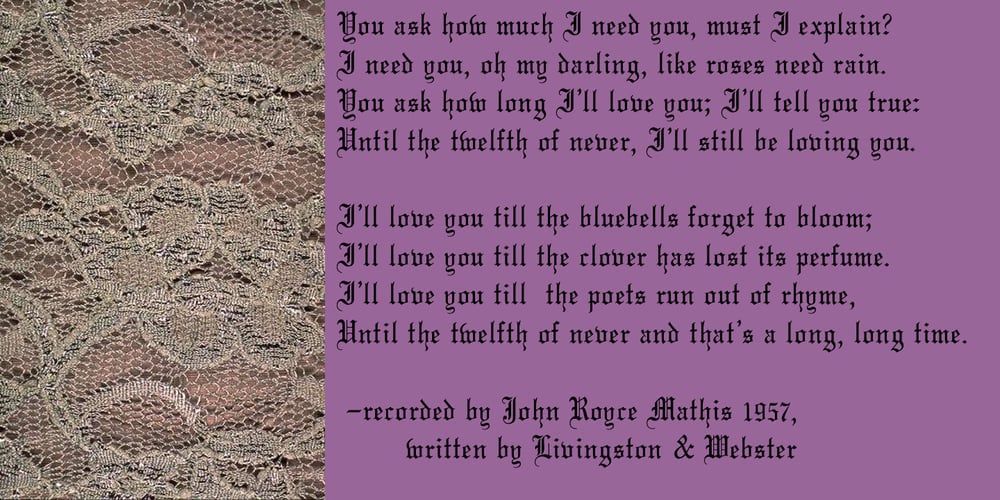
Wedding Font Family was designed by Morris Fuller Benton and published by HiH. Wedding contains 2 styles and family package options. Wedding Regular was originally designed by Morris Fuller Benton for ATF and released as Wedding Text in 1901. It is a lighter version of his ENGRAVER’S OLD ENGLISH of the same period. Wedding Regular is based on the Textura style of blackletter that continued in popularity in England into the 16th century, long after the Dutch, French and Italians had moved to a Roman model that expressed the Renaissance humanism of the period. Wedding Headline is a still lighter version of the regular text face, suitable for setting larger sizes while still preserving the delicacy of the decorative hairlines. Textura continues in use in England and the United States for newspaper mastheads, gift shop signs, wedding invitations and programs and other applications where a feeling of tradition is desired. I recently saw an 1980ish photo of a “Tubby Isaac” sign in London using textura. I believe Benton’s design captures that feeling without being heavy-handed and still remaining quite readable for eyes accustomed to Roman lettering. Both Wedding Regular and Wedding Headline convey a comfortable familiarity. These two fonts may be purchased together at an attractive discount or they may be purchased separately. The full character set may be found in the pdf file that you can download from the gallery section. The two monks (alt-0172 and alt-0177) are from a set of sixteenth century decorative initial letters by Gering and Renbolt. Please note that there are two different eszetts, the blackletter style at alt-0126 and the antiqua style at the alt-0223.